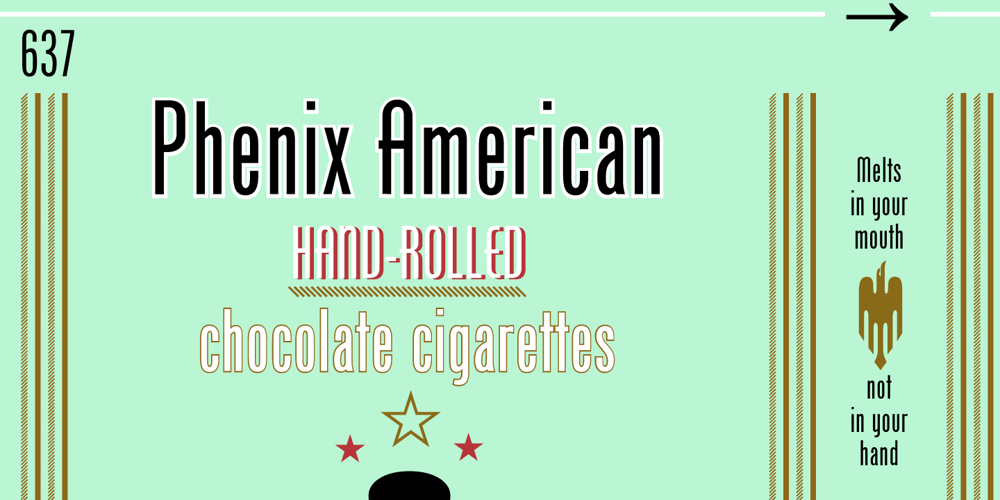
Phenix American Font Family was designed by published by Monotype. Phenix American contains 1 styles and family package options. Phenix American was designed by M.F. Benton in 1935. The Phenix American font is a headline design with condensed sans serif characters that look good on corporate stationery and packaging as well as on magazine and brochure covers.